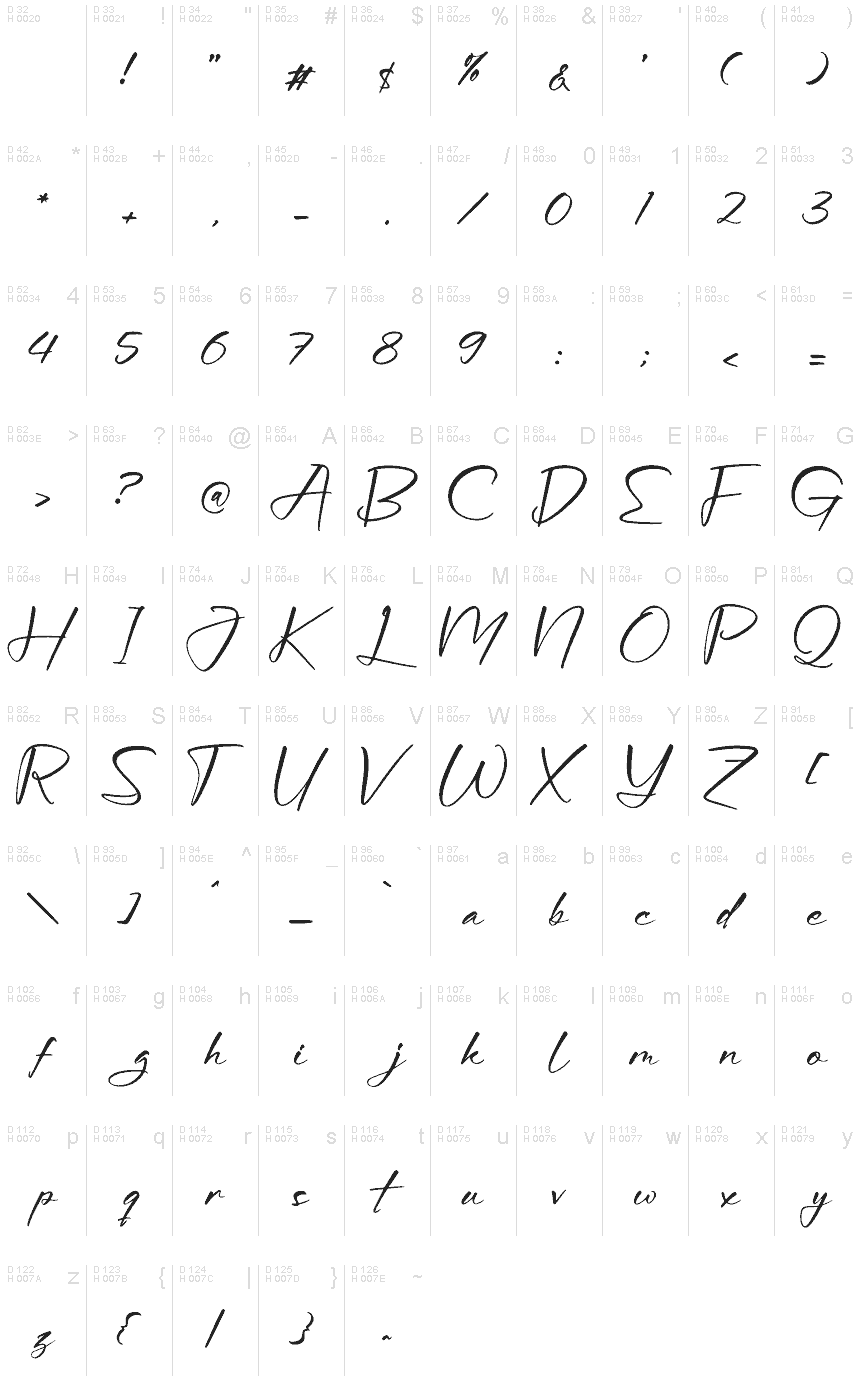
Gollatgher font is a light handwritten font designed by Letterena Studios. Elegant, flowing, and sophisticated, this expressive typeface binds the modern with an artistic flair. Its smooth curves and impeccable balance give it unparalleled charm and style that can make any text feel beautiful and truly alive.